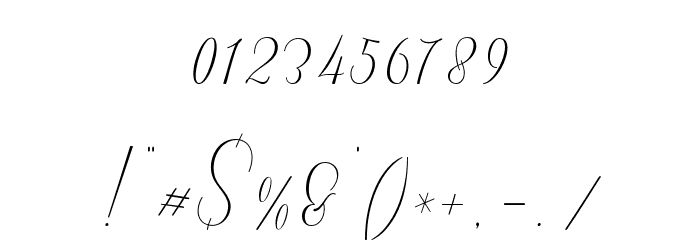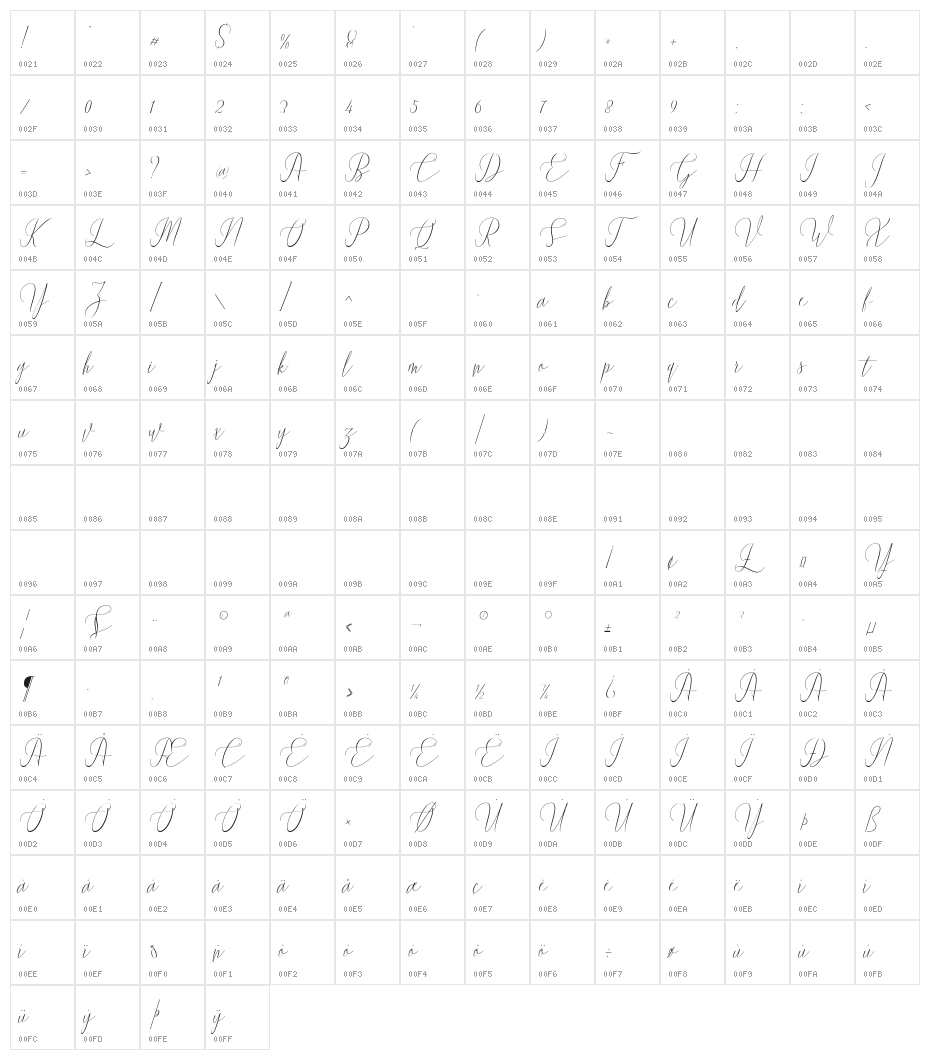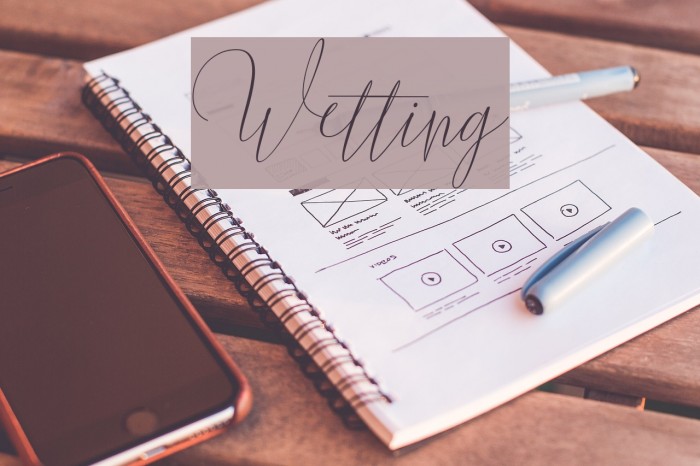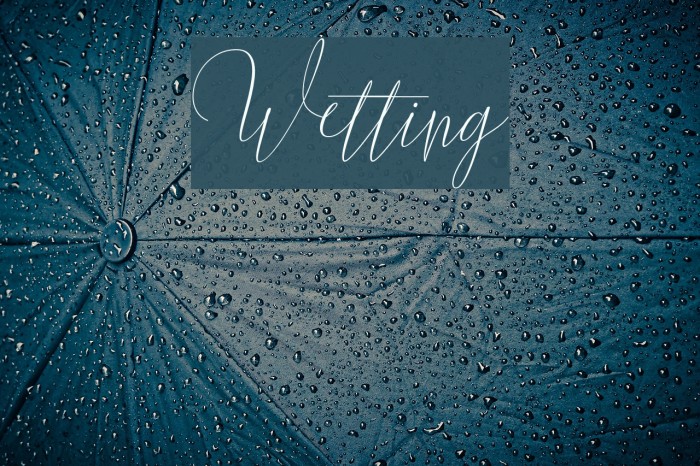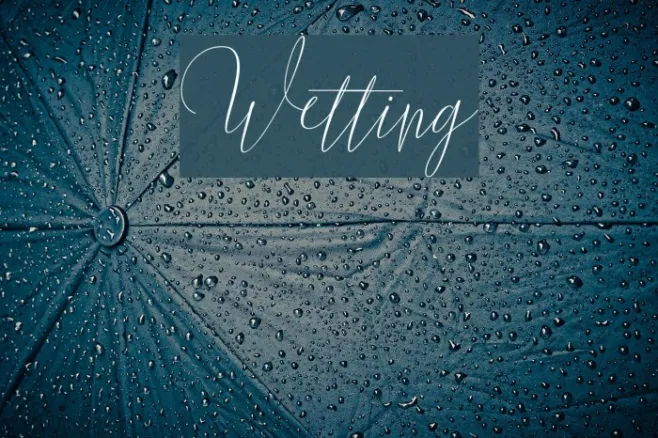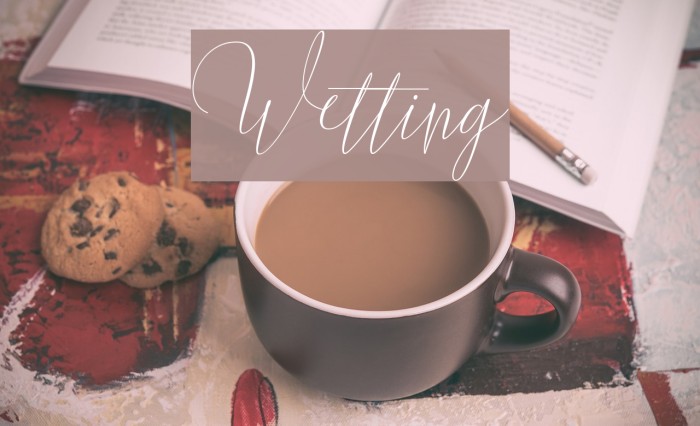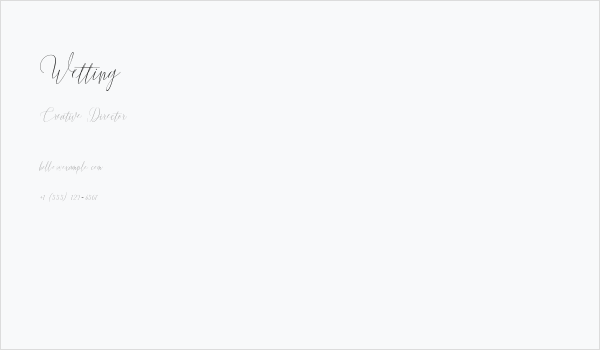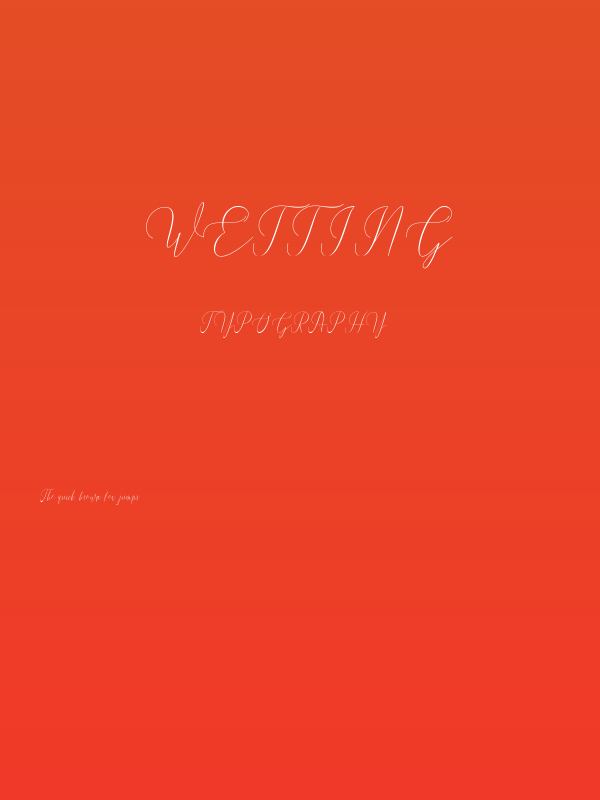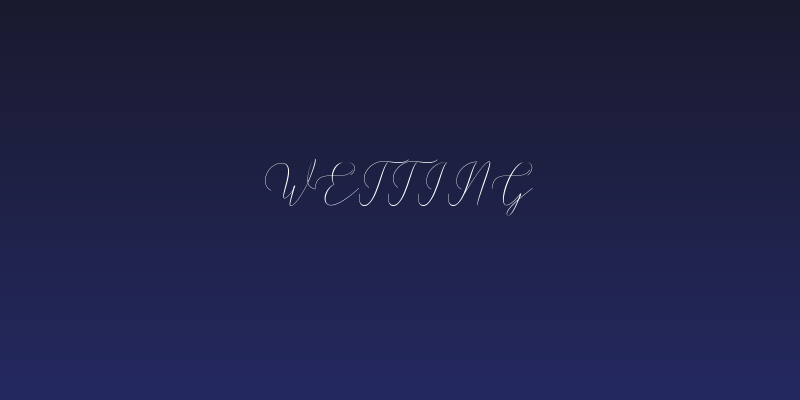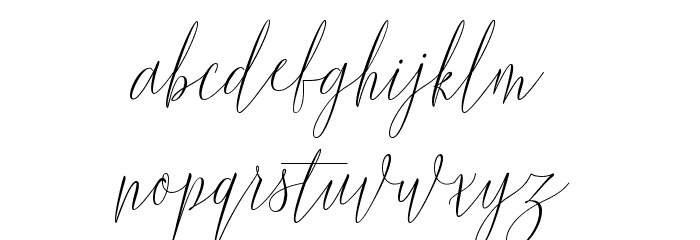
Wetting Font
Wetting Description
This elegant script font features flowing, cursive letterforms with a refined and sophisticated appearance. The uppercase letters are gracefully connected, while the lowercase letters maintain a consistent slant and fluidity. The numerals are stylish and complement the overall aesthetic, making it suitable for formal invitations and branding. The special characters are designed with the same attention to detail, ensuring a cohesive look across all text elements. The font's delicate strokes and high contrast between thick and thin lines enhance its luxurious feel.
| Use Case | Invitations, Branding, Stationery |
| Proposed Projects | Ideal for wedding invitations, luxury branding, elegant stationery, and high-end product packaging. |